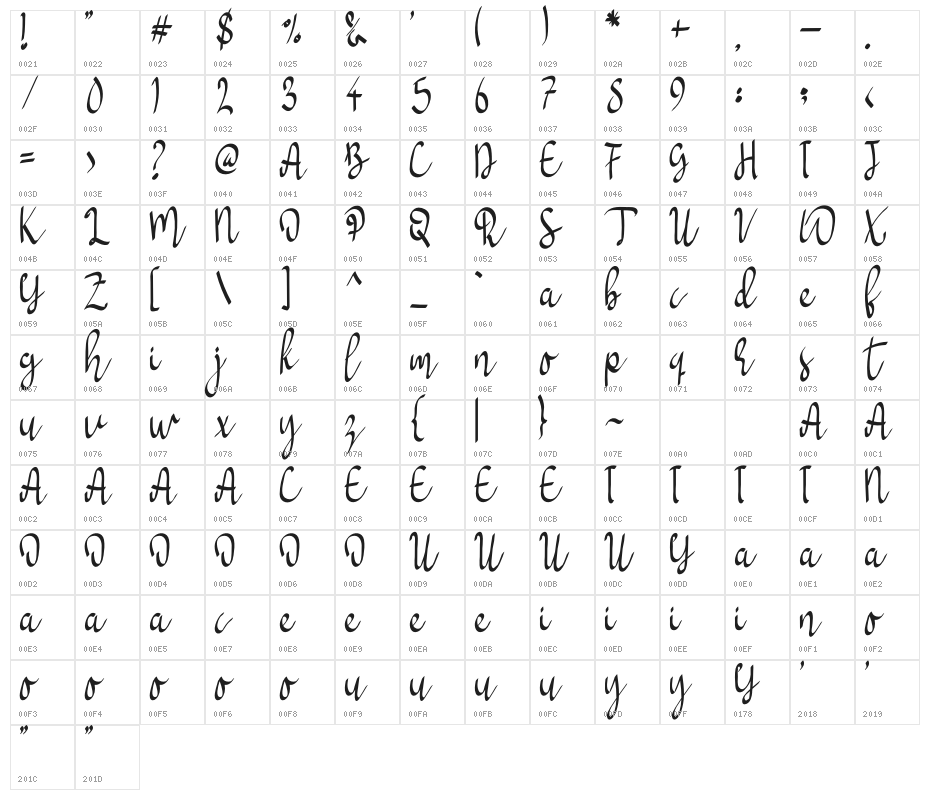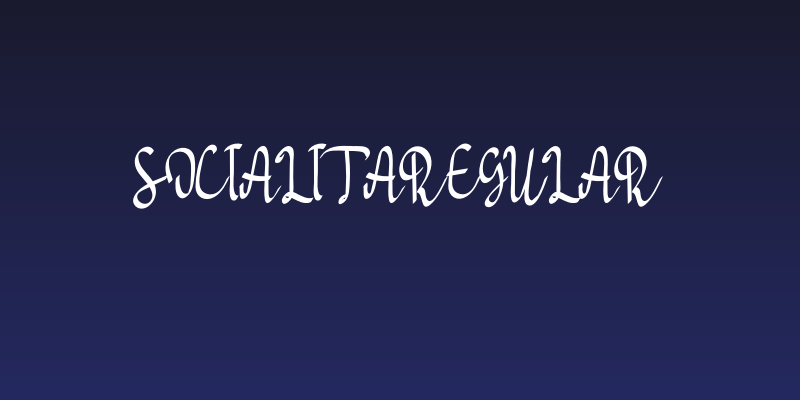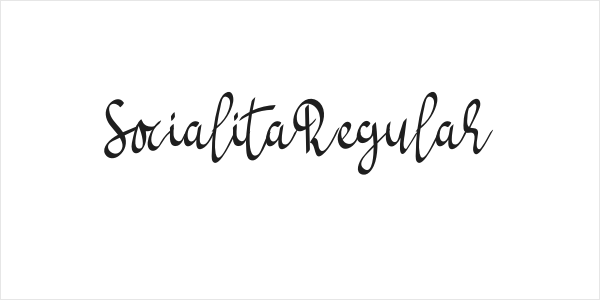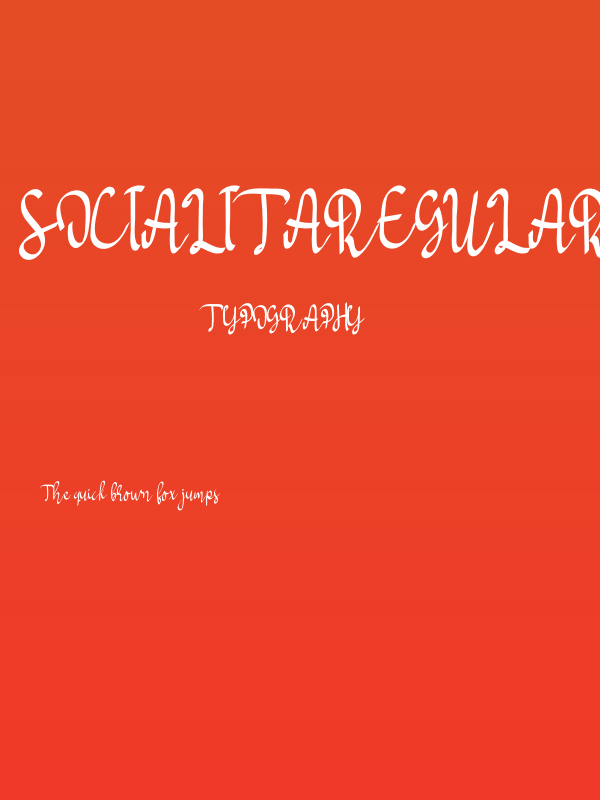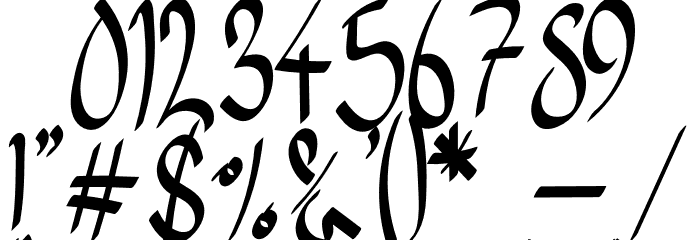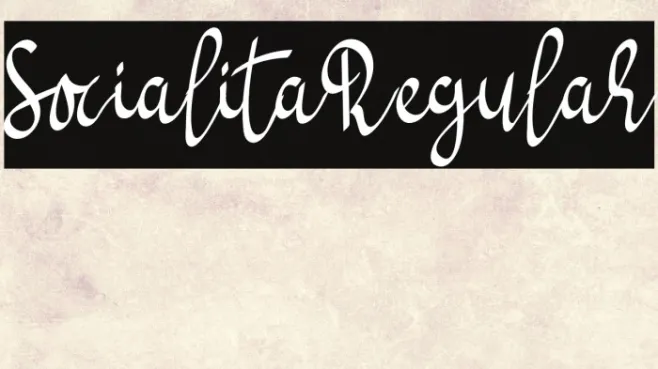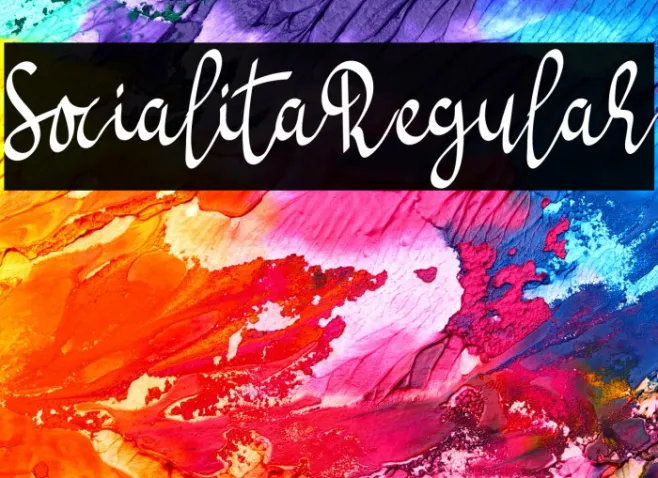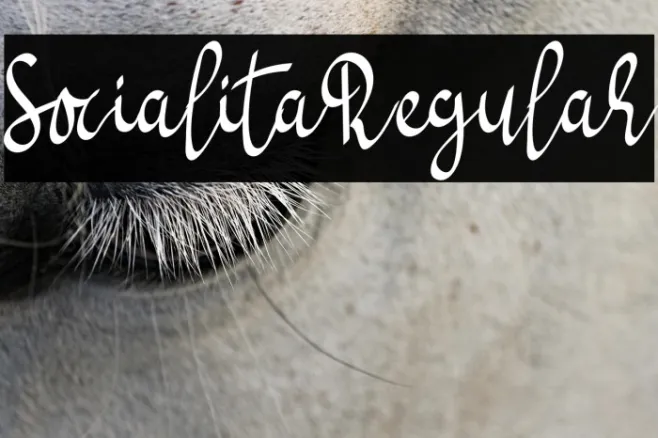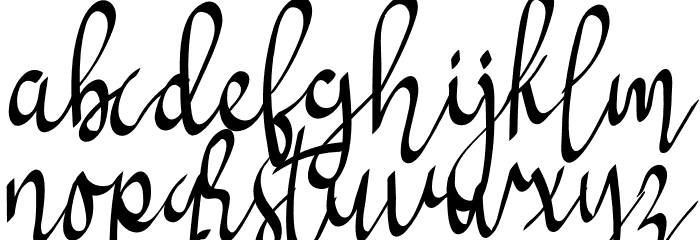
SocialitaRegular Font
SocialitaRegular Description
This font exudes a lively and dynamic energy with its fluid, cursive style. The characters are elegantly connected, creating a sense of movement and flow. The uppercase letters are bold and expressive, while the lowercase letters maintain a consistent rhythm, enhancing readability. The numerals and special characters are crafted with the same attention to detail, ensuring a cohesive look across all elements. The overall design is both modern and playful, making it suitable for a variety of creative projects.